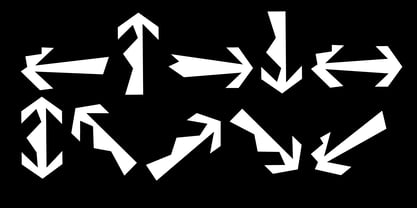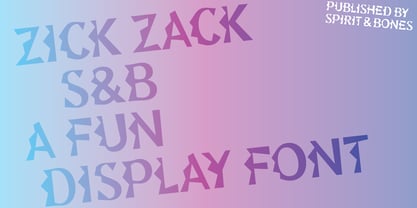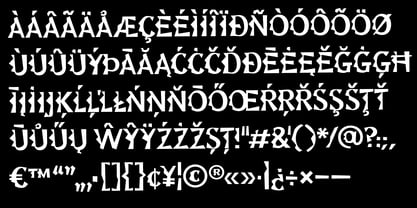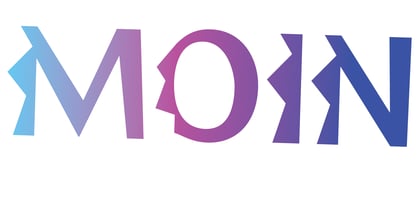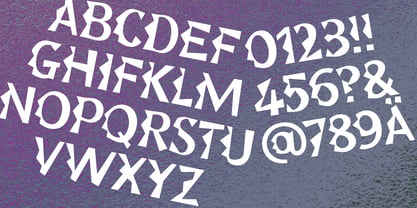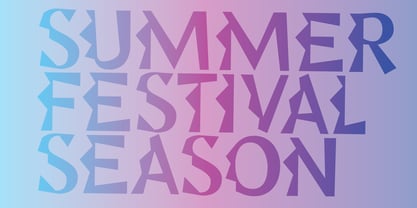
Zick Zack S&B
La familia tipográfica Zick Zack S&B fue diseñada por Lena Schmidt y publicada por Spirit & Bones. Zick Zack S&B contiene 1 estilos. Más información sobre esta familia
Zick Zack S&B is a dynamic display typeface that seamlessly blends vibrancy and coolness while maintaining a non-intrusive presence. Its expressive form creates a powerful visual statement, making it ideal for display applications. Perfect for headlines, posters, packaging, playful editorial layouts, and engaging visual systems, this typeface excels in bold and energetic compositions. Designed for striking visual impact rather than neutrality, Zick Zack S&B ensures that every design possesses a unique voice, enhancing the overall aesthetic appeal.
Spirit & Bones is a distinguished foundry located in Hamburg, established in 2021 by the talented artist and type designer Lena Schmidt. Lena's journey began with her studies in Fine Arts in Hamburg under the guidance of professor Matt Mullican, followed by a specialization in graphic design with a focus on type design, mentored by the renowned type designer and calligrapher Jovica Veljović. The inception of Spirit & Bones marks Lena's commitment to a profound and enduring exploration of the captivating realm of type design. This foundry is dedicated to creating unique typefaces that blend artistic expression with functional design, catering to a diverse range of industries and users who appreciate the art of typography. With a focus on innovation and quality, Spirit & Bones stands out for its artistic vision and dedication to the craft of type design.